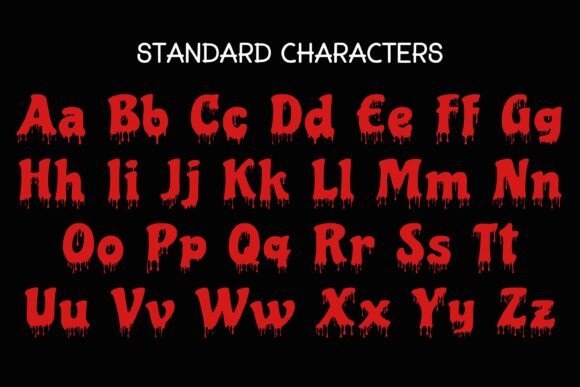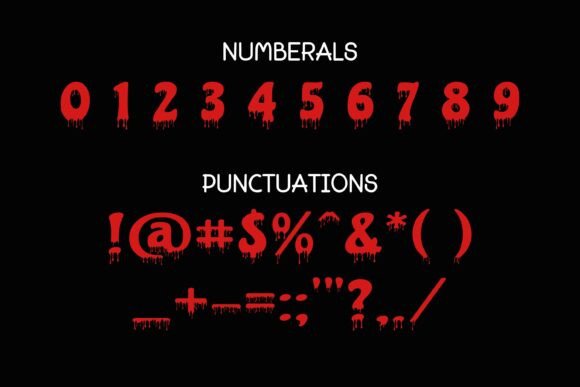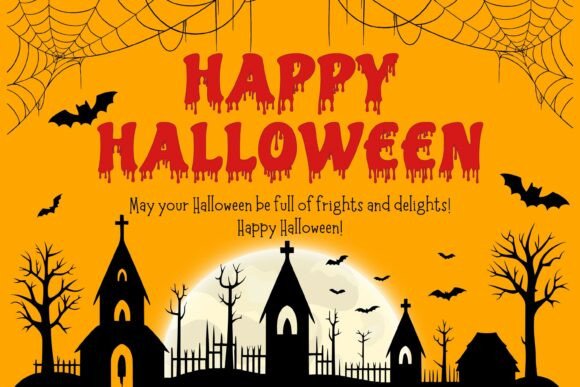
The Spooky Charm of Blood Drip Font: A Designer’s Delight
I’ll never forget the year I was tasked with creating a Halloween-themed design project for a client. As I sat in front of my computer, brainstorming ideas and scrolling through font libraries, I realized that finding the perfect font was going to be a challenge. That’s when I stumbled upon the Blood Drip font, and it instantly became the star of the show! 🎃
A Halloween-Themed Font to Die For
Blood Drip is a font with a Halloween theme that’s perfect for your spooky design projects. With its dripping blood effect, this decorative font is sure to add a touch of eeriness and whimsy to your designs. Whether you’re working on a Halloween-themed invitation, a spooky poster, or a creepy craft project, Blood Drip is the perfect choice.
What I Love About Blood Drip Font
• ✨ Unique and eye-catching design that’s perfect for Halloween-themed projects
• 🎃 Great for creating spooky and whimsical designs
While Blood Drip font is a great addition to any design project, there are a few things to keep in mind. 🤔 For example, the font may not work well for body text due to its decorative nature. Additionally, some users may find that the font is a bit limited in terms of versatility. ⚠️ However, for a Halloween-themed project, Blood Drip font is hard to beat!
The Backstory Behind Blood Drip Font
The story behind Blood Drip font is one of creative inspiration. According to the designer, the font was created as a tribute to the classic horror movies of the 1980s. The designer wanted to create a font that captured the spooky and whimsical spirit of Halloween, and Blood Drip font was born. 🎃